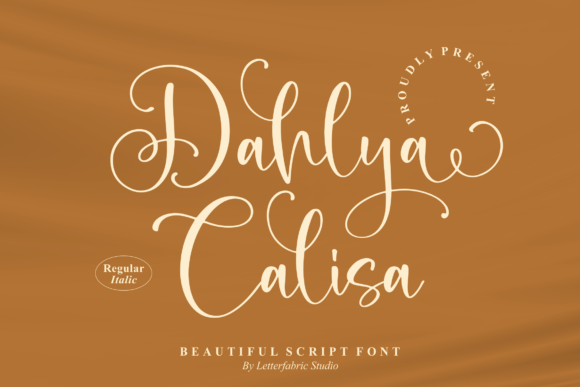
Introducing Dahlya Calisa Font: Elevate Your Designs with Elegance
In the world of typography, a beautiful script font can make all the difference in creating stunning designs. If you’re a designer, crafter, or DIY enthusiast looking for a gorgeous script font to elevate your projects, look no further than Dahlya Calisa. This exquisite font is perfect for a wide range of applications, from logos and branding projects to homeware designs, product packaging, and more.
What Makes Dahlya Calisa Special?
Dahlya Calisa is a gorgeous script font that boasts a unique and elegant style, making it suitable for various projects that require a touch of sophistication. Its beautiful script taste is sure to impress, whether you’re designing a logo, creating a brand identity, or crafting a special event invitation. With Dahlya Calisa, you can add a level of refinement and luxury to your designs that will set them apart from the rest.
One of the standout features of Dahlya Calisa is its PUA (Private Use Area) encoding. This means that you can access all of the glyphs and swashes with ease, giving you complete creative control over your designs. With PUA encoding, you can effortlessly navigate the font’s extensive character set, including alternative letters, ligatures, and ornaments, to create truly unique and eye-catching designs.
Dahlya Calisa is an incredibly versatile font that can be used for a wide range of projects, including:
- Logos and Branding Projects: Create a lasting impression with a custom logo that exudes elegance and sophistication.
- Homeware Designs: Add a touch of luxury to your home decor designs, from wall art to stationery.
- Product Packaging: Elevate your product packaging with a beautiful and eye-catching design that stands out on store shelves.
- Mugs and Drinkware: Create stunning designs for mugs, water bottles, and other drinkware that make perfect gifts or personal items.
- Quotes and Typography: Use Dahlya Calisa to create inspiring quotes, typographic art, and other text-based designs that showcase your creativity.
- Watermark and Signatures: Add a professional touch to your digital images with a custom watermark or signature that features Dahlya Calisa.
- Special Events: Create beautiful invitations, programs, and other materials for weddings, parties, and other special events.
Why Choose Dahlya Calisa?
With so many script fonts available, why choose Dahlya Calisa? Here are just a few reasons why this font stands out:
- Unique and Elegant Style: Dahlya Calisa boasts a distinctive and sophisticated style that will elevate your designs and set them apart.
- Highly Versatile: This font can be used for a wide range of projects, from logos and branding to homeware and product packaging.